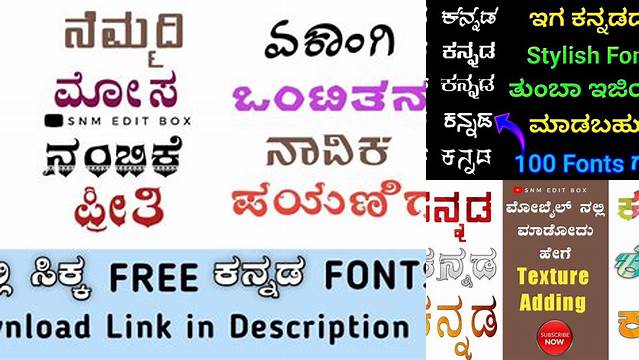
Kannada Text Fonts Online: Your Ultimate Guide
Hey guys! Ever found yourself needing the perfect Kannada text font for your project? Whether you're designing a website, creating social media content, or just typing up a document, the right font can make all the difference. Let's dive into the world of Kannada fonts online, exploring where to find them, how to use them, and everything in between. This guide is your one-stop shop for all things Kannada fonts!
1. Understanding the Importance of Kannada Fonts
Why are Kannada text fonts so important anyway? Well, fonts aren't just about how words look; they're about how they feel. The right font can convey the tone, mood, and message you're trying to communicate. Imagine using a playful, cartoonish font for a serious legal document – it just wouldn't work, right? For Kannada, a language rich in history and culture, choosing the right font is crucial for respecting and accurately representing the language. Using a well-designed Kannada font ensures readability and aesthetic appeal, making your content more engaging and professional. Think about the impact of poorly rendered text on a website or poster; it can detract from the message and even make it difficult to read. A good font, on the other hand, enhances the overall user experience and conveys a sense of professionalism. Different Kannada fonts cater to different needs, from elegant and traditional styles to modern and minimalist designs. Understanding these nuances allows you to select a font that perfectly matches the context and purpose of your content.
2. Where to Find Free Kannada Fonts Online
Alright, so where can you actually find these Kannada fonts online without breaking the bank? The good news is, there are tons of resources out there offering free fonts! Websites like Google Fonts, Font Squirrel, and even specific font foundries often have sections dedicated to regional language fonts, including Kannada. Google Fonts, for example, is a fantastic resource because it offers a wide variety of Kannada text fonts that are not only free but also optimized for web use. This means they load quickly and look great on any device. Font Squirrel is another excellent option, providing high-quality free fonts with clear licensing information, so you know exactly how you can use them. When browsing these sites, pay attention to the font license. Some fonts are free for personal use but require a commercial license for business projects. Always double-check the terms to avoid any copyright issues. Also, consider joining online communities and forums dedicated to typography and design. These groups often share hidden gems and unique Kannada font resources that you might not find through a simple Google search. Remember, the key is to explore and experiment until you find the perfect font that fits your needs.
3. Top Websites for Kannada Font Downloads
Let's get specific! Which websites are the top destinations for Kannada font downloads? We've already mentioned Google Fonts and Font Squirrel, but let's dig a little deeper. Google Fonts is a powerhouse, offering a vast library of open-source fonts, including a growing selection of Kannada text fonts. The interface is user-friendly, allowing you to easily preview fonts and even download them directly to your computer or embed them on your website. Font Squirrel stands out for its focus on high-quality, free-for-commercial-use fonts. Their selection of Kannada fonts might not be as extensive as Google Fonts, but the quality is consistently excellent. Another website worth checking out is MyFonts. While MyFonts isn't exclusively free, they have a huge collection of fonts, including many premium Kannada fonts that might be worth the investment if you're working on a major project. DaFont is another popular option, offering a wide range of free fonts contributed by designers around the world. However, it's crucial to carefully review the licensing terms for each font on DaFont, as they can vary significantly. Lastly, don't forget to explore the websites of individual font foundries. Many foundries specialize in Indian language fonts and offer a curated selection of Kannada fonts that you won't find anywhere else. By exploring these resources, you'll have access to a diverse range of options to elevate your Kannada text.
7. Using Kannada Fonts on Websites
Websites require special attention when it comes to fonts. Using Kannada text fonts on your website involves a few extra steps compared to desktop applications. The most common approach is to use web fonts, which are fonts that are hosted online and loaded by the browser when a user visits your site. Google Fonts is an excellent resource for web-safe Kannada fonts. They provide the necessary code snippets to embed the fonts directly into your website's HTML and CSS. Another option is to use a font hosting service like Adobe Fonts or Fontspring, which offer a wider selection of premium fonts. When choosing a Kannada font for your website, consider factors like readability, loading speed, and cross-browser compatibility. Some fonts might look great on one browser but render poorly on another. It's always a good idea to test your website with different browsers and devices to ensure a consistent user experience. In terms of CSS, you'll typically use the font-family
property to specify the Kannada font you want to use. You might also need to adjust the font-size
, line-height
, and letter-spacing
to optimize the appearance of your Kannada text on the web. Remember, the right font can significantly enhance the visual appeal and readability of your website, making it more engaging for Kannada-speaking visitors.
8. Best Kannada Fonts for Professional Use
For professional documents and designs, you need Kannada text fonts that are both elegant and highly readable. So, what are some of the best options? A few standout choices include Noto Sans Kannada, Tunga, and Kedage. Noto Sans Kannada is part of Google's Noto font family, which aims to support all languages in the world. It's a clean, modern, and highly versatile font that works well for both body text and headings. Tunga is another popular option, known for its classic and sophisticated look. It's a great choice for formal documents, reports, and other professional materials. Kedage is a more traditional Kannada font, with a distinct calligraphic feel. It's well-suited for projects that require a touch of elegance and tradition. When selecting a Kannada font for professional use, consider the overall tone and style of your document or design. A clean and modern font like Noto Sans Kannada is a safe bet for most situations, while a more stylized font like Kedage might be appropriate for specific projects. Also, pay attention to the font's readability at different sizes. A font that looks great in a large heading might be difficult to read in small body text. By carefully considering these factors, you can choose a Kannada font that enhances the professionalism and impact of your work.
9. Modern Kannada Fonts for Contemporary Designs
In the world of contemporary design, Kannada text fonts are evolving to meet the needs of modern aesthetics. If you're looking for Kannada fonts that feel fresh, clean, and cutting-edge, there are several exciting options available. Fonts like Lohit Kannada and Mallige are excellent choices for projects that require a modern touch. Lohit Kannada is known for its simplicity and readability, making it a great option for websites, apps, and digital publications. Mallige offers a slightly more stylized look, with subtle curves and elegant details. It's well-suited for branding materials, logos, and other design elements that need to stand out. When using modern Kannada fonts, consider pairing them with other contemporary typefaces to create a cohesive and visually appealing design. Experiment with different font weights and styles to achieve the desired effect. Also, pay attention to the overall layout and composition of your design. A modern font can help to create a clean and minimalist aesthetic, but it's important to ensure that your design is still visually engaging and easy to read. With the right modern Kannada font, you can create designs that are both stylish and culturally relevant.
10. Traditional Kannada Fonts for Cultural Projects
For projects that celebrate Kannada culture and heritage, traditional Kannada text fonts are essential. These fonts often evoke a sense of history and authenticity, making them perfect for books, invitations, and other materials that require a classic touch. Fonts like Nudi and Kannada are excellent examples of traditional Kannada fonts. Nudi is a widely used font that closely resembles the traditional Kannada script. It's a great choice for preserving the cultural integrity of your text. Kannada is another classic font that offers a similar aesthetic. When using traditional Kannada fonts, consider the context of your project. These fonts are often best suited for formal or ceremonial occasions. For more contemporary designs, you might want to explore a wider range of font styles. Also, pay attention to the legibility of the font. Some traditional fonts can be more difficult to read in small sizes, so it's important to choose a font that is both beautiful and functional. By carefully selecting a traditional Kannada font, you can create designs that honor the rich cultural heritage of the Kannada language.
11. Calligraphic Kannada Fonts for Artistic Expressions
When it comes to artistic expression, calligraphic Kannada text fonts can add a unique and elegant touch to your projects. These fonts mimic the fluidity and beauty of hand-lettered calligraphy, making them ideal for invitations, posters, and other creative designs. Several Kannada fonts capture the essence of calligraphy, offering a range of styles from formal and refined to playful and whimsical. When using calligraphic Kannada fonts, consider the overall mood and message you want to convey. A formal calligraphic font might be perfect for a wedding invitation, while a more playful font could be used for a birthday card. Also, pay attention to the spacing and layout of your text. Calligraphic fonts often have intricate details and flourishes, so it's important to give them enough room to breathe. Experiment with different colors and textures to enhance the artistic impact of your design. With the right calligraphic Kannada font, you can create stunning visual pieces that showcase the beauty of the Kannada script.
12. Handwritten Kannada Fonts for Personal Touches
For a personal and intimate feel, handwritten Kannada text fonts are an excellent choice. These fonts mimic the natural imperfections and unique character of handwriting, making them perfect for greeting cards, journals, and other projects where you want to add a human touch. There's a growing selection of Kannada fonts that capture the essence of handwriting, ranging from neat and legible to more free-flowing and expressive. When using handwritten Kannada fonts, consider the tone and style of your message. A neat and legible font might be suitable for a thank-you note, while a more expressive font could be used for a personal letter. Also, pay attention to the size and spacing of your text. Handwritten fonts often look best when they're slightly larger than traditional fonts, and it's important to ensure that the spacing is consistent and easy to read. Experiment with different colors and backgrounds to enhance the personal touch of your design. With the right handwritten Kannada font, you can create projects that feel authentic and heartfelt.
13. Bold Kannada Fonts for Headlines and Titles
When you need to make a statement, bold Kannada text fonts are your best friend. These fonts are designed to grab attention and create impact, making them ideal for headlines, titles, and other prominent text elements. A well-chosen bold Kannada font can instantly elevate the visual hierarchy of your design and ensure that your key messages stand out. When selecting a bold Kannada font, consider the overall style and tone of your project. A clean and modern bold font might be perfect for a website headline, while a more traditional bold font could be used for a book cover. Also, pay attention to the readability of the font at different sizes. A bold font that looks great in a large headline might be difficult to read in small body text. Experiment with different font weights and styles to find the perfect balance between impact and readability. With the right bold Kannada font, you can create headlines and titles that command attention and effectively communicate your message.
14. Light Kannada Fonts for Elegant Designs
For designs that require a touch of elegance and sophistication, light Kannada text fonts are an excellent choice. These fonts are characterized by their delicate strokes and subtle presence, making them ideal for body text, captions, and other text elements that need to be readable without being overpowering. A well-chosen light Kannada font can add a sense of refinement and grace to your project. When selecting a light Kannada font, consider the overall style and tone of your design. A clean and modern light font might be perfect for a website body text, while a more traditional light font could be used for a formal invitation. Also, pay attention to the contrast between the font and the background. A light font can be difficult to read if it's placed on a light background, so it's important to ensure that there's enough contrast to make the text legible. Experiment with different font sizes and line heights to optimize the readability of your light Kannada font. With the right light Kannada font, you can create designs that are both elegant and highly readable.
15. Kannada Fonts with Serifs for Traditional Look
Serif fonts, with their small decorative strokes at the end of each character, often evoke a sense of tradition and formality. Kannada text fonts with serifs can add a touch of classic elegance to your designs, making them well-suited for projects that require a timeless aesthetic. Several Kannada fonts incorporate serifs, offering a range of styles from subtle and refined to bold and pronounced. When using serif Kannada fonts, consider the overall tone and style of your project. A refined serif font might be perfect for a formal document, while a bolder serif font could be used for a headline or title. Also, pay attention to the readability of the font at different sizes. Some serif fonts can be more difficult to read in small sizes, so it's important to choose a font that is both beautiful and functional. Experiment with different line heights and letter spacing to optimize the readability of your serif Kannada font. With the right serif Kannada font, you can create designs that are both classic and visually appealing.
16. Kannada Fonts without Serifs for Modern Appeal
Sans-serif fonts, characterized by their clean and simple lines without decorative strokes, often convey a sense of modernity and minimalism. Kannada text fonts without serifs are an excellent choice for designs that require a contemporary feel, making them well-suited for websites, apps, and other digital applications. A wide range of Kannada fonts are available in sans-serif styles, offering versatility for various design needs. When selecting a sans-serif Kannada font, consider the overall style and tone of your project. A clean and geometric sans-serif font might be perfect for a website header, while a more rounded sans-serif font could be used for body text. Also, pay attention to the legibility of the font across different devices and screen resolutions. Sans-serif fonts generally render well on screens, but it's important to ensure that the font is still easily readable at smaller sizes. Experiment with different font weights and line heights to optimize the visual clarity of your sans-serif Kannada font. With the right sans-serif Kannada font, you can create designs that are both modern and highly functional.
17. Pairing Kannada Fonts with English Fonts
Combining Kannada text fonts with English fonts can create visually interesting and harmonious designs, but it's crucial to do it thoughtfully. The goal is to find a balance between the two languages, ensuring that they complement each other without clashing. A good starting point is to choose Kannada fonts and English fonts that share similar characteristics, such as weight, style, and x-height (the height of the lowercase letters). For example, a clean and modern sans-serif Kannada font might pair well with a geometric sans-serif English font like Open Sans or Montserrat. When pairing fonts, it's also important to consider the hierarchy of your text. Use a bolder font for headings and a lighter font for body text to create a clear visual structure. Also, pay attention to the contrast between the fonts. If your Kannada font is highly stylized, you might want to pair it with a more neutral English font to avoid overwhelming the reader. Experiment with different font combinations to find what works best for your project. Online tools like FontPair can also be helpful in suggesting font pairings. With a little bit of care and attention, you can create designs that beautifully integrate Kannada and English typography.
18. Understanding Kannada Font Licensing
Before you start using Kannada text fonts in your projects, it's crucial to understand the font licensing. Font licenses dictate how you can legally use a font, including whether you can use it for commercial projects, embed it in websites, or modify it. There are several types of font licenses, ranging from free and open-source licenses to commercial licenses. Open-source fonts, like those available on Google Fonts, often have very permissive licenses that allow you to use the font for almost any purpose, including commercial projects. However, it's always a good idea to double-check the specific terms of the license to ensure that you're complying with the requirements. Commercial licenses, on the other hand, typically require you to purchase a license fee in order to use the font for commercial purposes. The cost of a commercial license can vary depending on the font and the intended use. It's important to read the license agreement carefully to understand the terms and conditions. Using a font without the proper license can result in legal consequences, so it's always better to be safe than sorry. When in doubt, contact the font designer or foundry for clarification on the licensing terms. Understanding Kannada font licensing is a crucial step in ensuring that you're using fonts legally and ethically.
19. Creating Your Own Kannada Fonts
For those who want complete control over their typography, creating your own Kannada text fonts is an exciting possibility. While it requires a significant investment of time and effort, the result is a unique and personalized font that perfectly reflects your vision. There are several software tools available for font creation, ranging from user-friendly options like FontLab Studio to more advanced programs like Glyphs. These tools allow you to draw each character of your Kannada font, adjust the spacing and kerning, and generate the font files that can be installed on your computer. Creating a font is a complex process that involves a deep understanding of typography principles, including letterforms, spacing, and consistency. It's also important to consider the specific characteristics of the Kannada script, which has a unique structure and set of ligatures. If you're new to font design, it's helpful to start by studying existing Kannada fonts and analyzing their design elements. You can also take online courses or workshops to learn the fundamentals of font creation. Creating your own font is a challenging but rewarding endeavor that can result in a truly unique and valuable asset for your design work.
20. Common Mistakes to Avoid When Using Kannada Fonts
Using Kannada text fonts effectively requires attention to detail, and there are several common mistakes that designers should avoid. One of the most frequent errors is using a font that is not legible or readable. A beautiful font is useless if it's difficult for people to read. Always prioritize legibility, especially for body text. Another common mistake is using too many fonts in a single design. This can create a cluttered and confusing look. It's generally best to stick to two or three fonts at most. Also, avoid using fonts that clash with each other. Choose fonts that complement each other in terms of style and weight. Another mistake is neglecting kerning and leading. Kerning refers to the spacing between individual letters, while leading is the spacing between lines of text. Adjusting these settings can significantly improve the readability and visual appeal of your Kannada text. Finally, make sure you have the proper license for any Kannada fonts you're using. Using a font without the appropriate license can result in legal issues. By avoiding these common mistakes, you can ensure that your Kannada typography is both beautiful and effective.
21. The Future of Kannada Typography Online
The landscape of Kannada text fonts online is constantly evolving, with new fonts and technologies emerging all the time. The future of Kannada typography looks bright, with increasing support for Kannada in web browsers, operating systems, and design software. As the demand for Kannada fonts grows, we can expect to see more designers and foundries creating high-quality typefaces that meet the diverse needs of the Kannada-speaking community. One exciting trend is the development of variable fonts, which allow for a single font file to contain multiple variations in weight, width, and other characteristics. This can significantly reduce file sizes and improve website performance. Another trend is the increasing use of artificial intelligence (AI) in font design. AI tools can help automate certain aspects of the font creation process, making it easier and faster to design new typefaces. As technology continues to advance, we can expect to see even more innovative approaches to Kannada typography online. The future of Kannada fonts is all about accessibility, creativity, and innovation, ensuring that the Kannada language continues to thrive in the digital age.
22. Finding the Right Kannada Font for Your Brand
Your brand's visual identity is crucial, and choosing the right Kannada text fonts plays a significant role in conveying your brand's personality and message. The font you select will be a consistent element across your marketing materials, website, and other touchpoints, so it needs to align with your brand's values and target audience. When selecting Kannada fonts for your brand, start by considering your brand's personality. Are you modern and innovative, or traditional and established? A clean sans-serif font might be a good choice for a modern brand, while a serif font could be more appropriate for a traditional brand. Also, think about your target audience. What kind of font will resonate with them? A younger audience might be drawn to a more playful and casual font, while a more professional audience might prefer a classic and sophisticated font. It's also important to consider the readability of the font. Your brand font should be easy to read in a variety of contexts, from website headlines to business cards. Once you've narrowed down your options, test the font in different applications to see how it looks in practice. With careful consideration, you can choose a Kannada font that perfectly represents your brand.
23. Using Kannada Fonts in Social Media Graphics
Social media is a visual medium, and using the right Kannada text fonts can make your graphics stand out and engage your audience. Whether you're creating posts for Facebook, Instagram, or other platforms, the font you choose can have a significant impact on the effectiveness of your message. When selecting Kannada fonts for social media graphics, consider the platform you're using and the type of content you're creating. For example, a bold and eye-catching font might be perfect for a promotional graphic, while a cleaner and more readable font could be better for informative posts. Also, pay attention to the size of your text. Social media graphics are often viewed on small screens, so it's important to ensure that your text is legible even at smaller sizes. Use contrasting colors to make your text stand out against the background. Light text on a dark background or vice versa can improve readability. Finally, be consistent with your font choices. Using the same Kannada font across all your social media graphics can help to build brand recognition and create a cohesive visual identity. With the right fonts, your social media content can be both visually appealing and effectively communicate your message to your audience.
24. Resources for Learning More About Kannada Typography
If you're eager to deepen your knowledge of Kannada text fonts and typography, there are numerous resources available online and offline. Websites like Typography.com and I Love Typography offer articles, tutorials, and inspiration related to all aspects of typography, including regional scripts like Kannada. Online courses on platforms like Coursera and Udemy can provide a structured learning experience, covering topics such as font design, font pairing, and the history of typography. Books are another valuable resource, offering in-depth discussions of typography principles and best practices. Look for books that specifically address Indian language typography or regional scripts. Online forums and communities, such as those on Reddit and Behance, can be a great place to connect with other designers and typographers, share your work, and get feedback. Don't underestimate the value of hands-on practice. Experiment with different Kannada fonts, try creating your own designs, and analyze the work of other designers to learn from their successes and mistakes. Learning about Kannada typography is an ongoing journey, but the more you invest in your knowledge, the more effective and impactful your designs will be.
25. Kannada Font Trends in 2024
Staying up-to-date with the latest trends in Kannada text fonts can help your designs feel fresh and contemporary. In 2024, several key trends are shaping the landscape of Kannada typography. One prominent trend is the increasing popularity of variable fonts, which offer a wide range of stylistic variations within a single font file. This allows for greater flexibility and customization in design. Another trend is the use of bold and expressive Kannada fonts in headlines and branding materials. These fonts are designed to grab attention and create impact. Clean and minimalist sans-serif fonts continue to be popular for body text, providing excellent readability and a modern aesthetic. There's also a growing interest in handwritten and calligraphic fonts, which can add a personal and artistic touch to designs. In terms of specific styles, geometric sans-serif fonts and humanist serif fonts are both gaining traction. It's important to note that trends are just one factor to consider when choosing a font. The best font for your project will depend on your specific needs and goals. However, staying aware of the latest trends can help you make informed decisions and create designs that feel current and relevant. Keep an eye on design blogs, typography websites, and social media to stay informed about the latest developments in Kannada fonts.
26. Kannada Fonts for Mobile Applications
Mobile applications require special consideration when it comes to font choices. Kannada text fonts used in mobile apps must be highly legible on small screens and across various devices. The user experience on mobile devices is paramount, so font selection needs to prioritize clarity and readability above all else. When selecting Kannada fonts for mobile applications, consider the screen size and resolution of the target devices. Fonts that appear crisp and clear on high-resolution screens might look blurry or pixelated on lower-resolution screens. Sans-serif fonts are generally preferred for mobile apps due to their clean lines and legibility. Choose fonts with adequate character spacing and avoid overly condensed or decorative fonts. The font size should also be appropriate for the screen size. Too small and the text will be unreadable; too large and it will take up too much space. Also, consider the weight of the font. Bold fonts can improve readability, but excessively bold fonts can appear overwhelming. Test your Kannada font choices on different devices and in various lighting conditions to ensure optimal readability. Remember, a well-chosen font can significantly enhance the user experience in your mobile app.
27. Kannada Fonts for Print Materials
When designing for print, selecting the right Kannada text fonts is crucial for ensuring readability and visual appeal. Print materials have different requirements than digital media, so font choices need to be carefully considered. Kannada fonts for print should be chosen based on the type of material, the target audience, and the overall design aesthetic. For long-form text, such as books or magazines, serif fonts are often preferred due to their enhanced readability. Serif fonts have small strokes at the ends of the characters, which help guide the eye across the page. For headlines and shorter text elements, sans-serif fonts can be effective, providing a clean and modern look. The font size should be appropriate for the viewing distance. Larger font sizes are necessary for posters and billboards, while smaller font sizes are suitable for brochures and business cards. Line height and letter spacing are also important considerations. Adequate line height improves readability, while proper letter spacing prevents characters from appearing cramped or overlapping. Print quality can also affect font rendering, so it's important to choose fonts that will print clearly at the intended resolution. Always test print samples before finalizing your font choices to ensure they look their best in the printed medium.
28. How Kannada Fonts Affect User Experience
The Kannada text fonts you choose can have a profound impact on user experience, particularly in digital environments. The right font can enhance readability, convey the intended message, and create a positive impression. Conversely, a poorly chosen font can hinder readability, create confusion, and even detract from the overall user experience. Legibility is paramount. Kannada fonts that are difficult to read can frustrate users and prevent them from engaging with your content. Choose fonts with clear letterforms and adequate spacing. The font's style should align with the tone and purpose of your content. A formal font might be appropriate for a professional website, while a more casual font could be used for a social media post. Consistency in font usage is also crucial. Using too many different fonts can create a cluttered and unprofessional look. Stick to a limited number of fonts and use them consistently across your design. Font size and line height should be optimized for the viewing environment. Text that is too small or has inadequate line height can be difficult to read, especially on small screens. Consider the cultural context of your audience. The font you choose should be appropriate for the cultural background and preferences of your target audience. A well-chosen Kannada font can significantly improve user engagement and create a positive experience for your audience.
29. The Importance of Kerning and Leading in Kannada Typography
Kerning and leading are two fundamental aspects of typography that significantly impact the readability and visual appeal of Kannada text fonts. Kerning refers to the adjustment of spacing between individual letters to create a harmonious and balanced appearance. Proper kerning prevents letters from appearing too close together or too far apart, which can hinder readability. In Kannada fonts, kerning is particularly important due to the complex letterforms and ligatures in the script. Leading, also known as line height, is the vertical space between lines of text. Adequate leading improves readability by creating visual separation between lines, preventing them from appearing crowded. The optimal leading depends on the font size, font style, and line length. Longer lines of text generally require greater leading. Both kerning and leading are often adjusted manually by typographers to achieve the best possible results. Many design software programs offer tools for fine-tuning these settings. Neglecting kerning and leading can result in text that is difficult to read and visually unappealing. Mastering these typographic principles is essential for creating professional and effective Kannada typography.
30. Best Practices for Choosing Kannada Fonts Online
Choosing the right Kannada text fonts online can seem daunting, but following some best practices can streamline the process and ensure you select fonts that meet your needs. Start by defining your project goals. What is the purpose of your design, and who is your target audience? This will help you narrow down your font choices. Consider the overall tone and style you want to convey. Are you aiming for a modern, traditional, formal, or casual look? Select fonts that align with your desired aesthetic. Readability is paramount. Choose Kannada fonts that are easy to read in the intended context, whether it's a website, mobile app, or print material. Pay attention to the font size, line height, and letter spacing. Test your font choices on different devices and screen resolutions to ensure they render well across various platforms. Don't be afraid to experiment with different font combinations. Pairing Kannada fonts with English or other languages can create a visually interesting design. Pay attention to font licensing. Ensure you have the necessary permissions to use the fonts for your intended purposes, especially for commercial projects. Explore online font resources, such as Google Fonts, Font Squirrel, and MyFonts, to discover a wide range of options. Seek inspiration from other designers and projects that use Kannada fonts effectively. By following these best practices, you can confidently choose Kannada fonts that enhance the quality and impact of your designs.